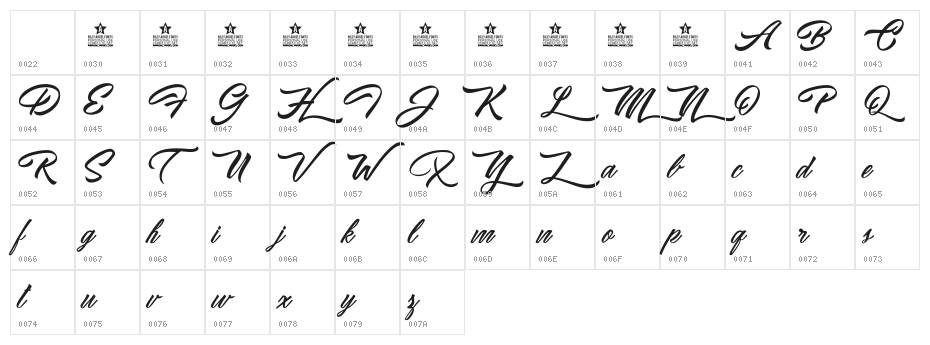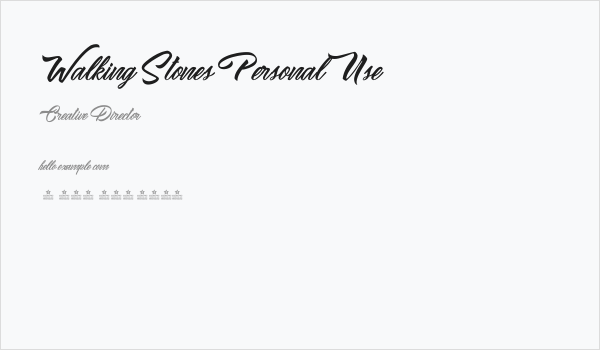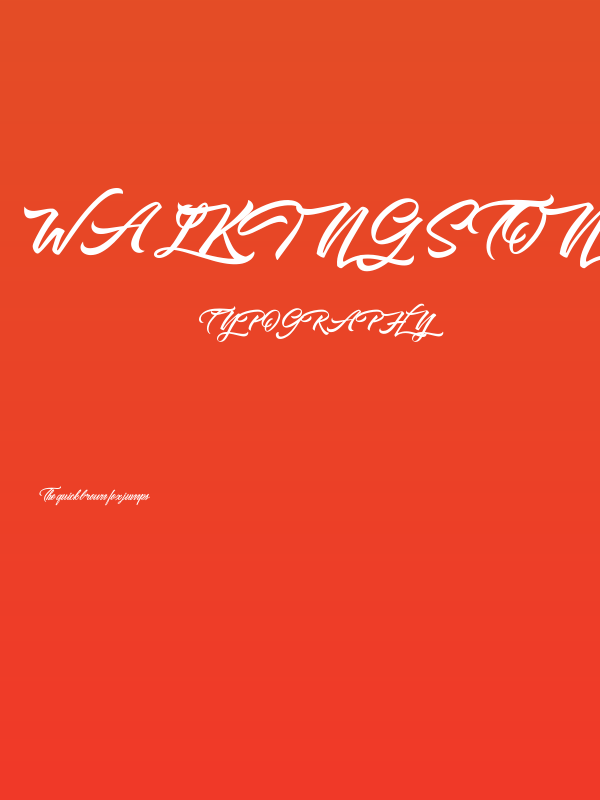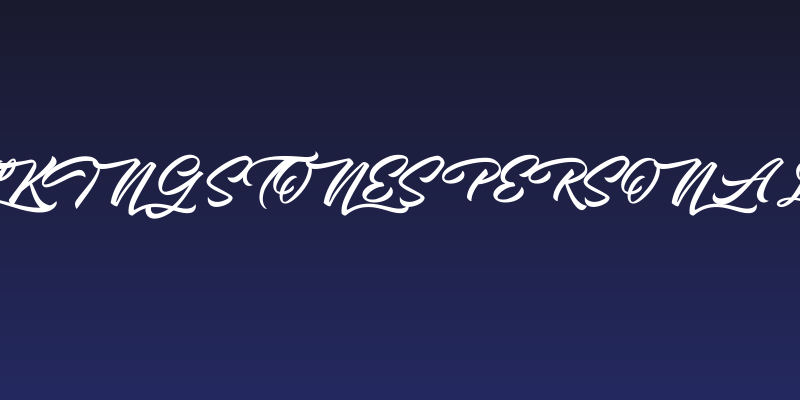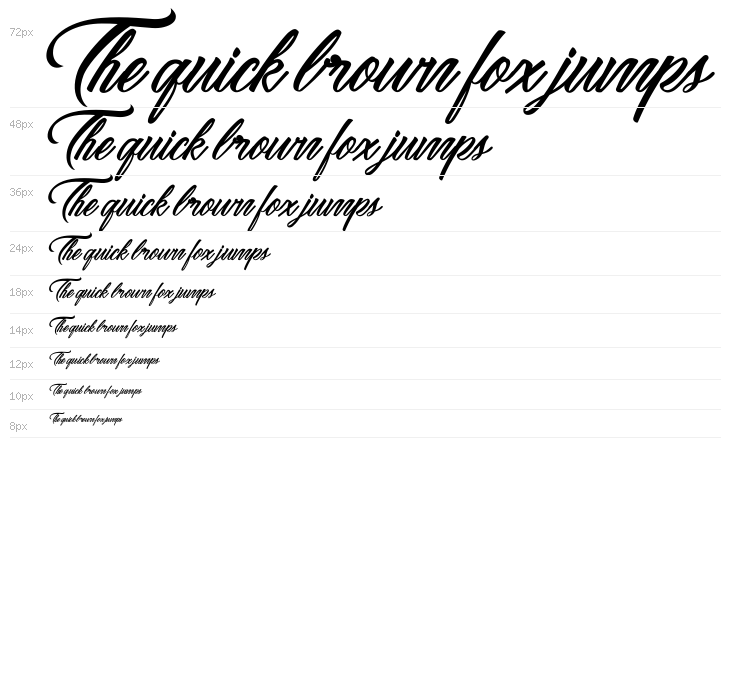
Walking Stones Personal Use Font
Walking Stones Personal Use Description
This font features a dynamic and flowing script style, characterized by its elegant and cursive letterforms. The uppercase letters exhibit a sophisticated flair with sweeping ascenders and descenders, creating a sense of movement and grace. The lowercase letters maintain a consistent rhythm, enhancing readability while preserving the artistic quality. The numbers and special characters are crafted with the same attention to detail, ensuring a cohesive appearance across all glyphs. This font's design is reminiscent of traditional calligraphy, yet it incorporates modern elements that make it suitable for contemporary applications.